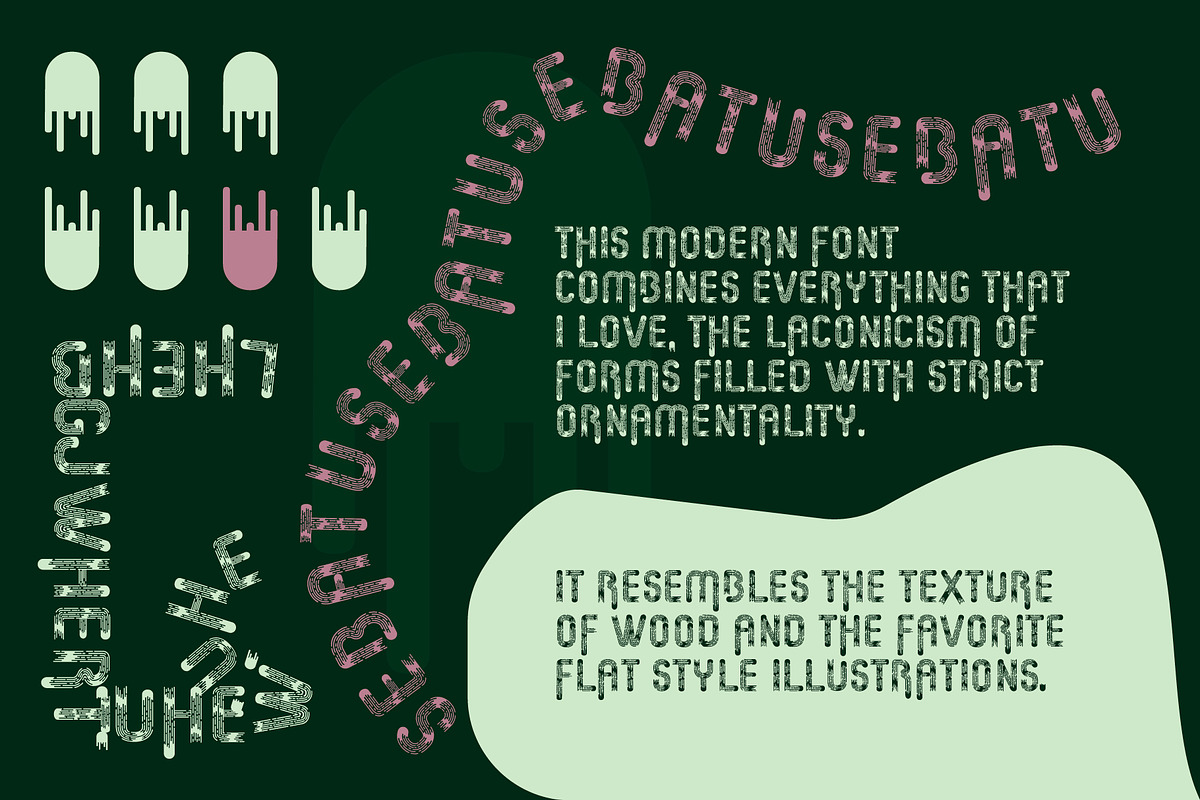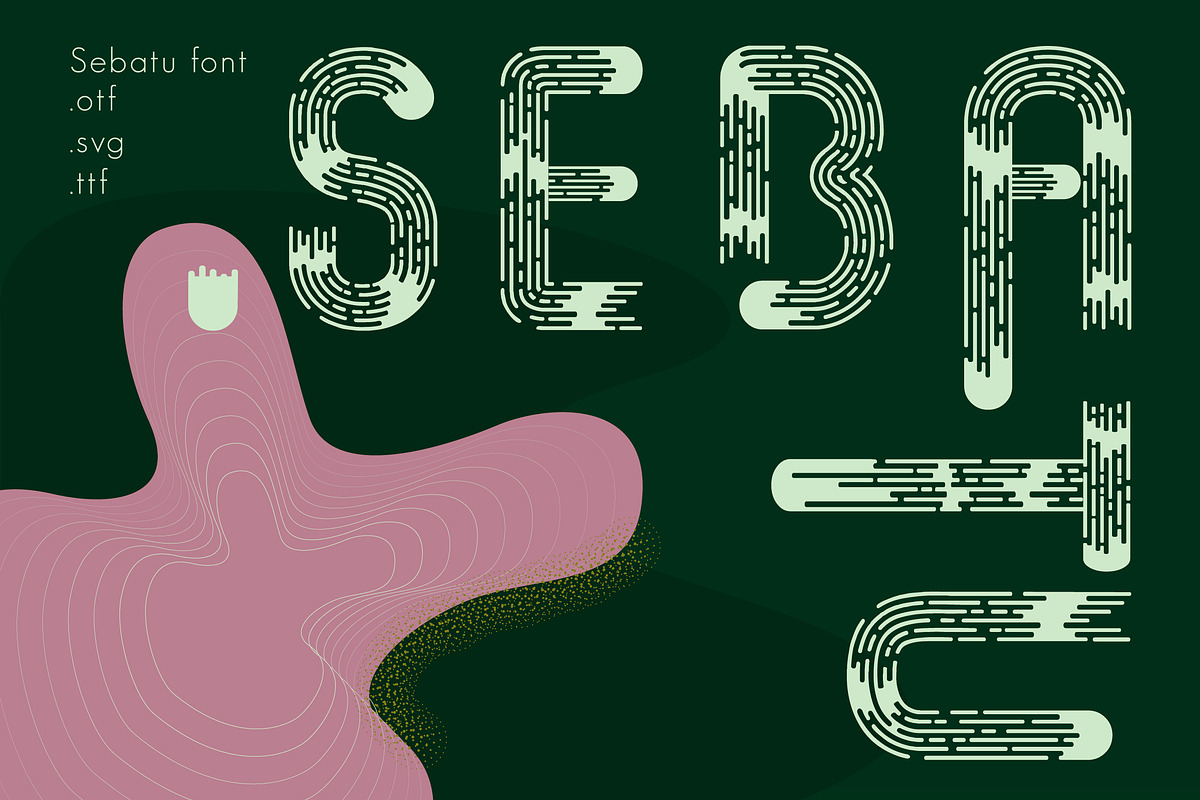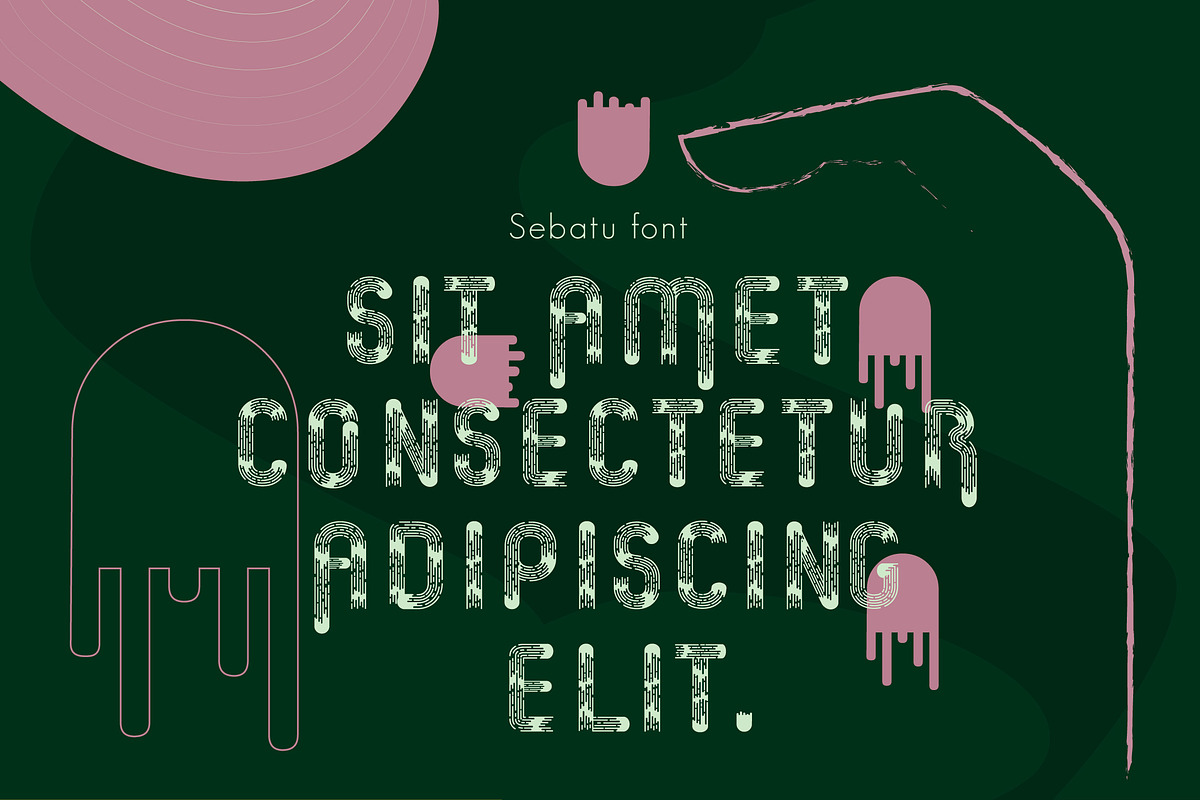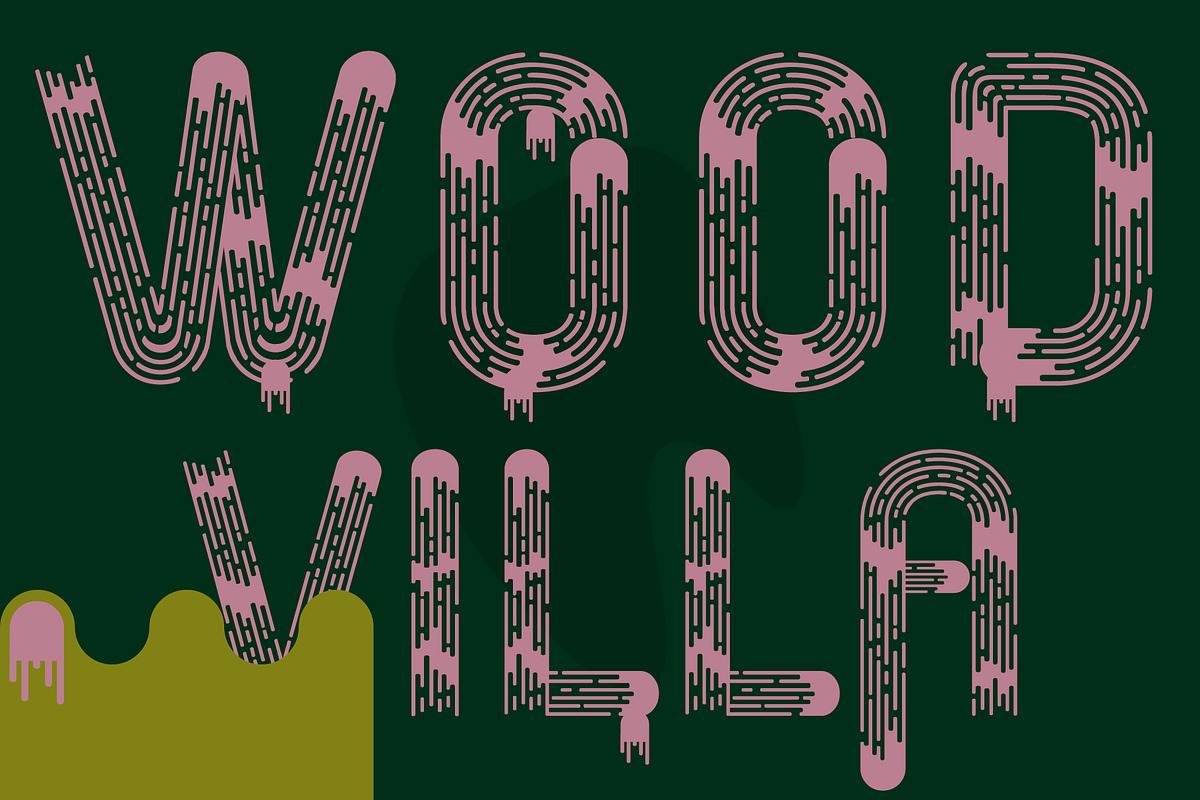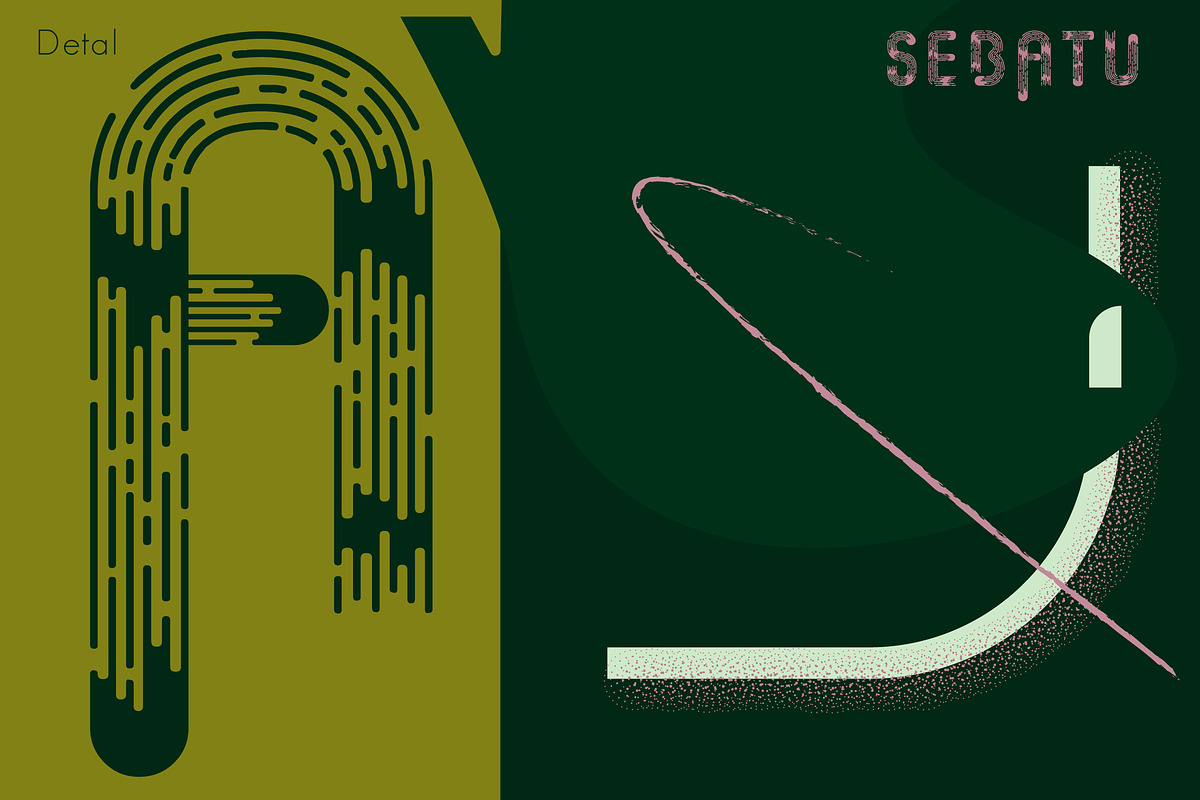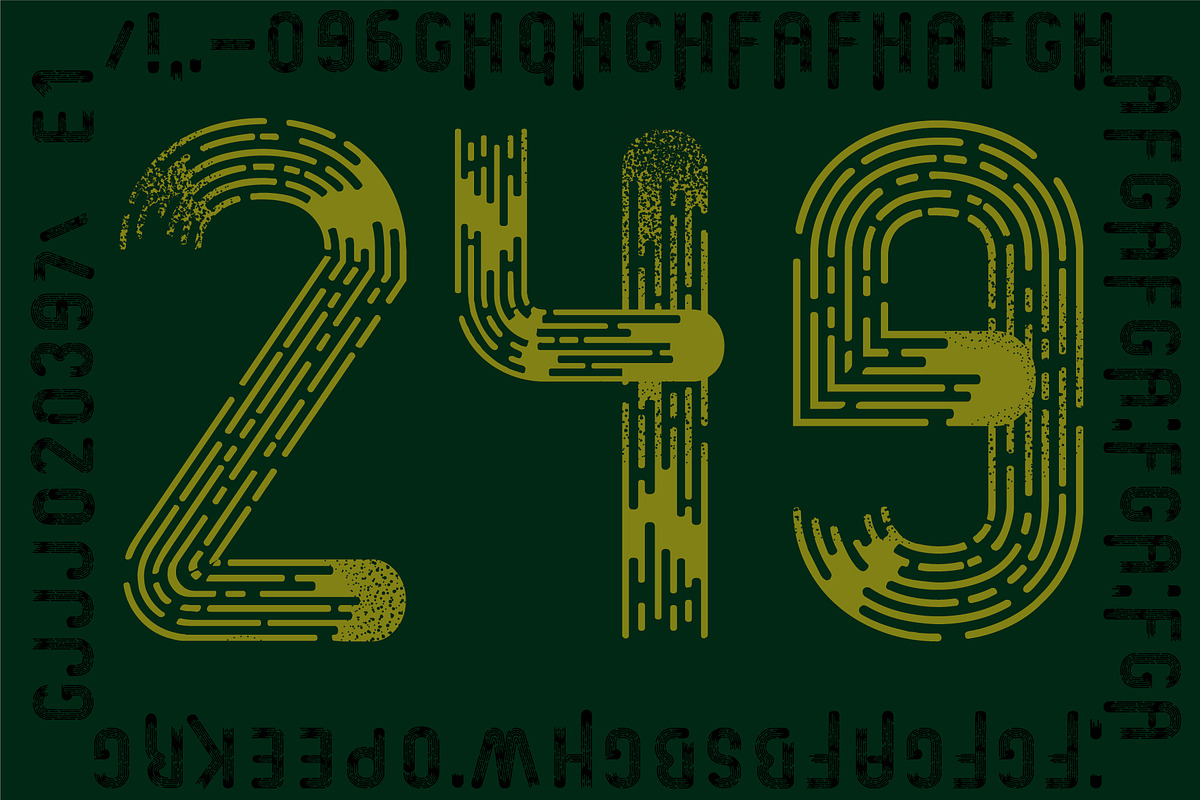
Sebatu modern font
This modern font combines everything that I love, the laconicism of forms filled with strict ornamentality. It resembles the texture of wood and the favorite flat style illustrations. It will undoubtedly stand out in layout, originality and self-sufficiency